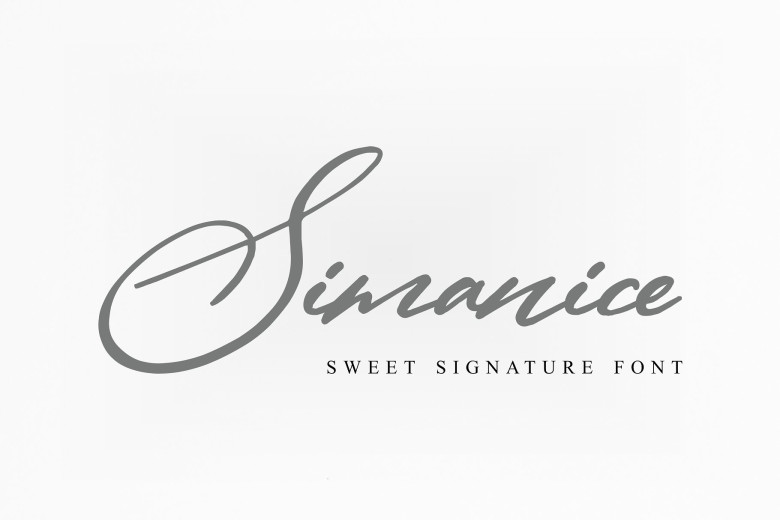
Simanice Signature Font
Thank you for looking! Introducing the new elegant signature font, It is named Simanice Font! SIMANICE, a fashionable and contemporary of signature font designed to perfectly compliment one another. With a fast-flowing script font. The including; logos, branding, magazines, blog posts, social media, advertisements & product designs.